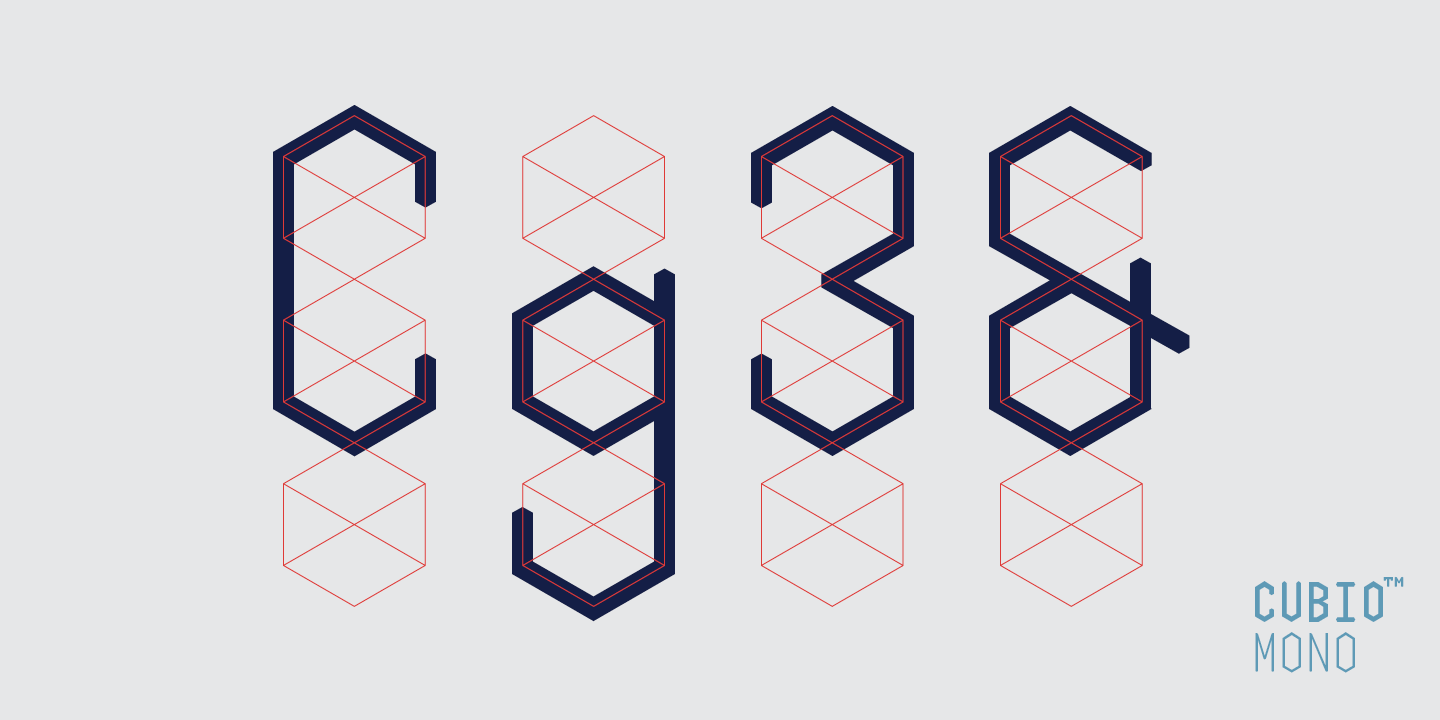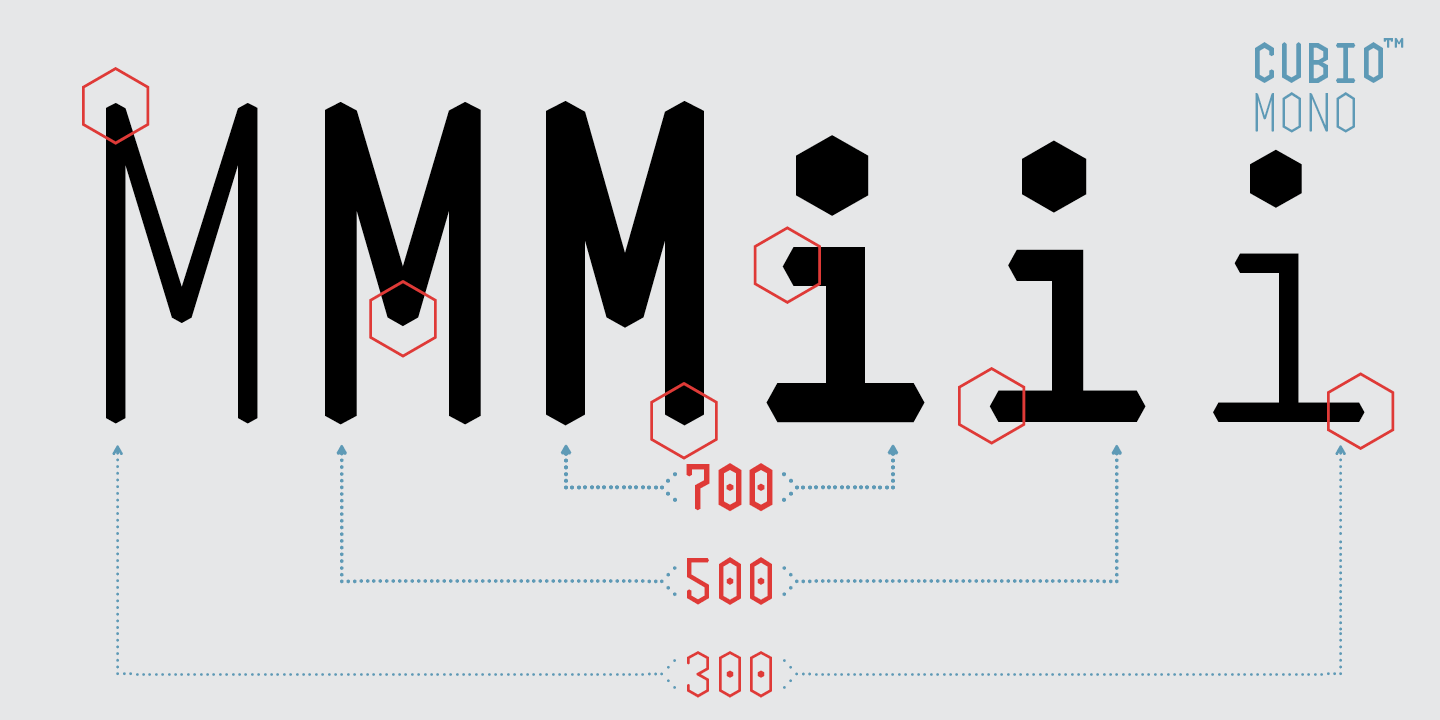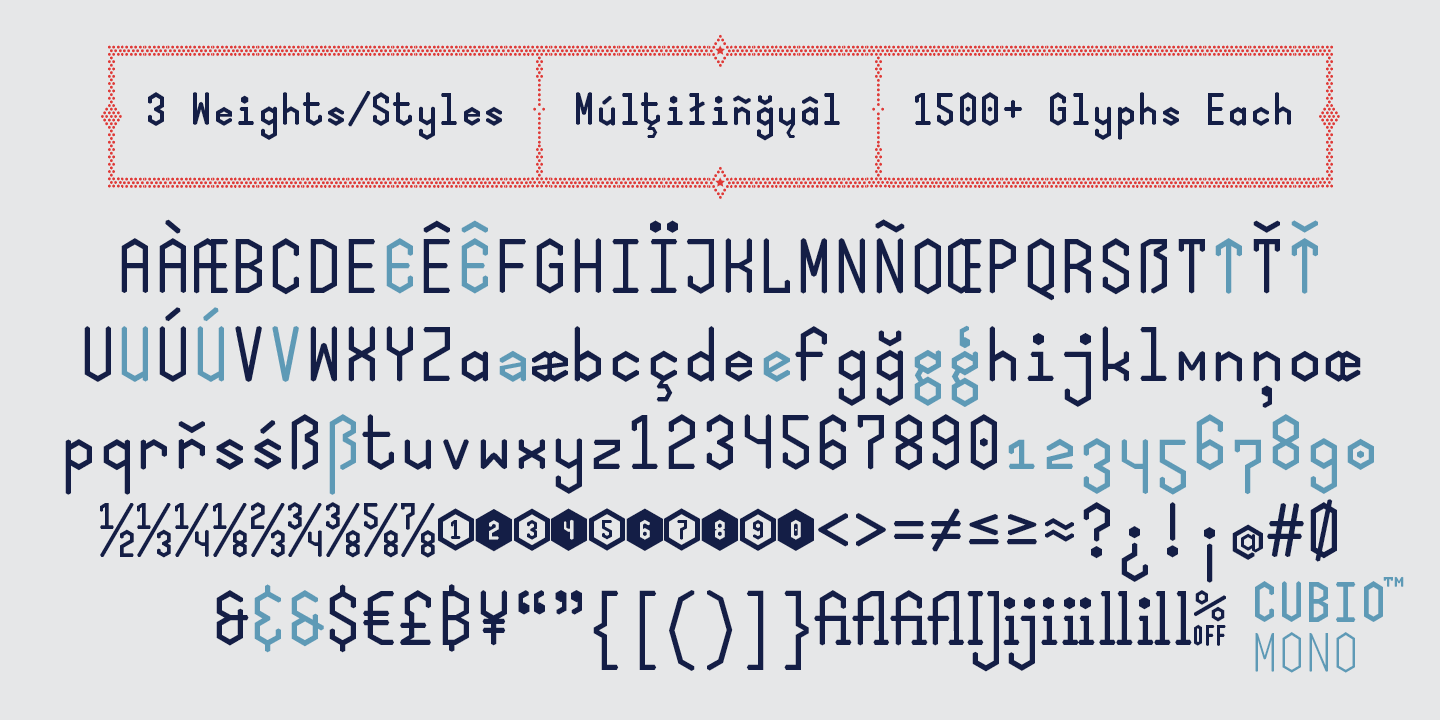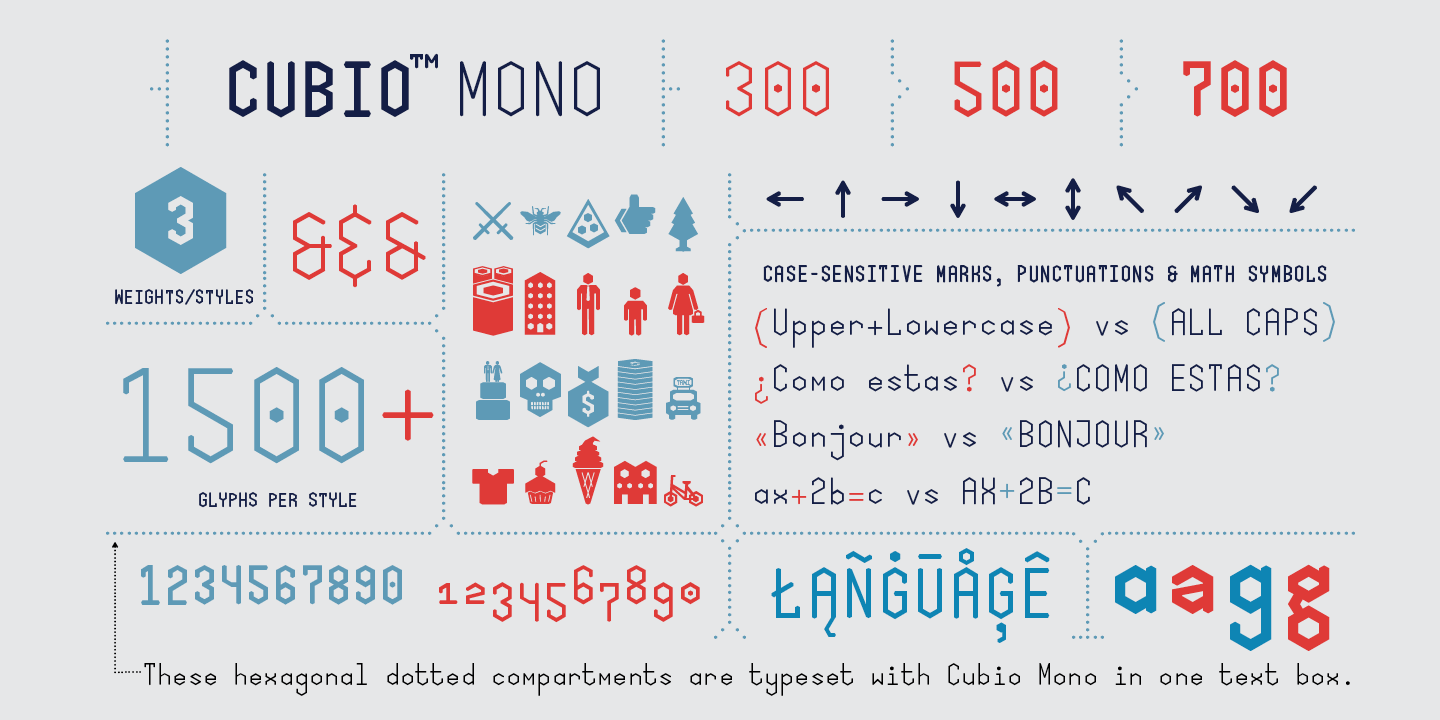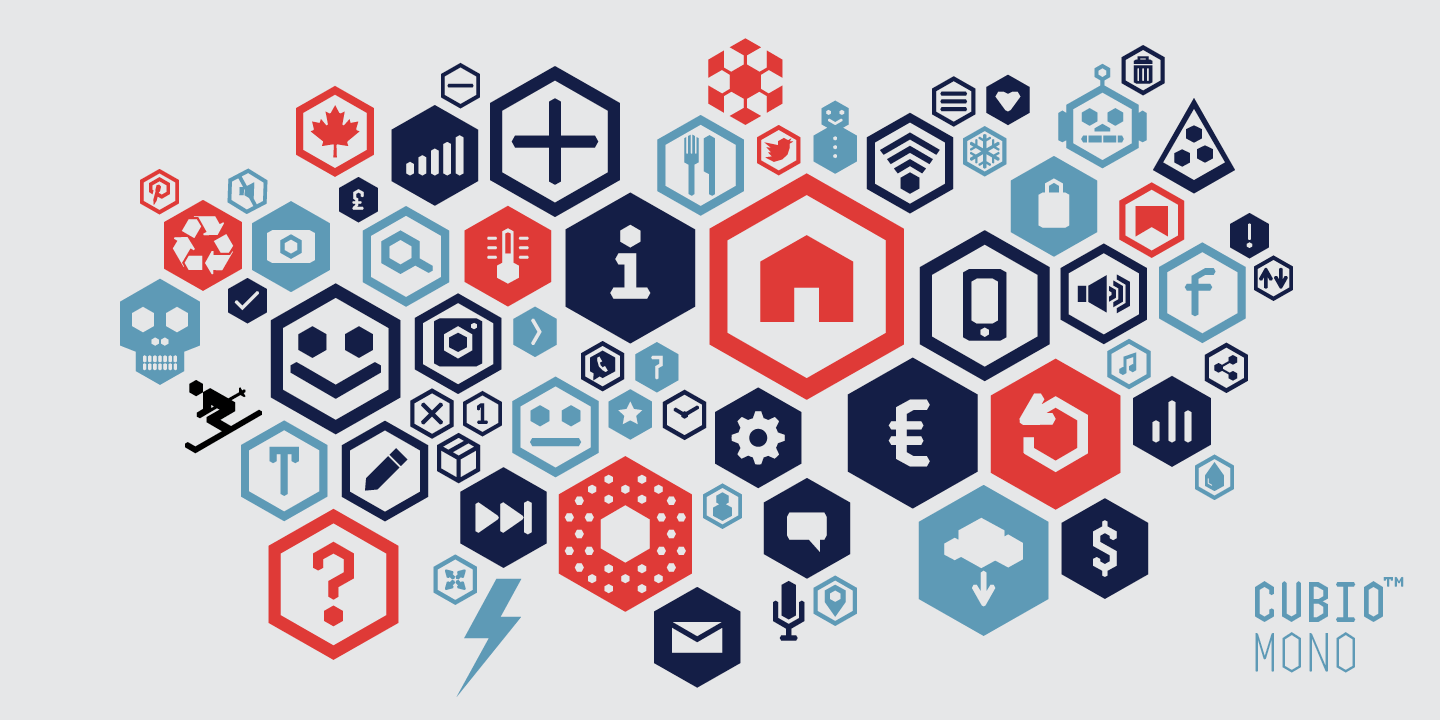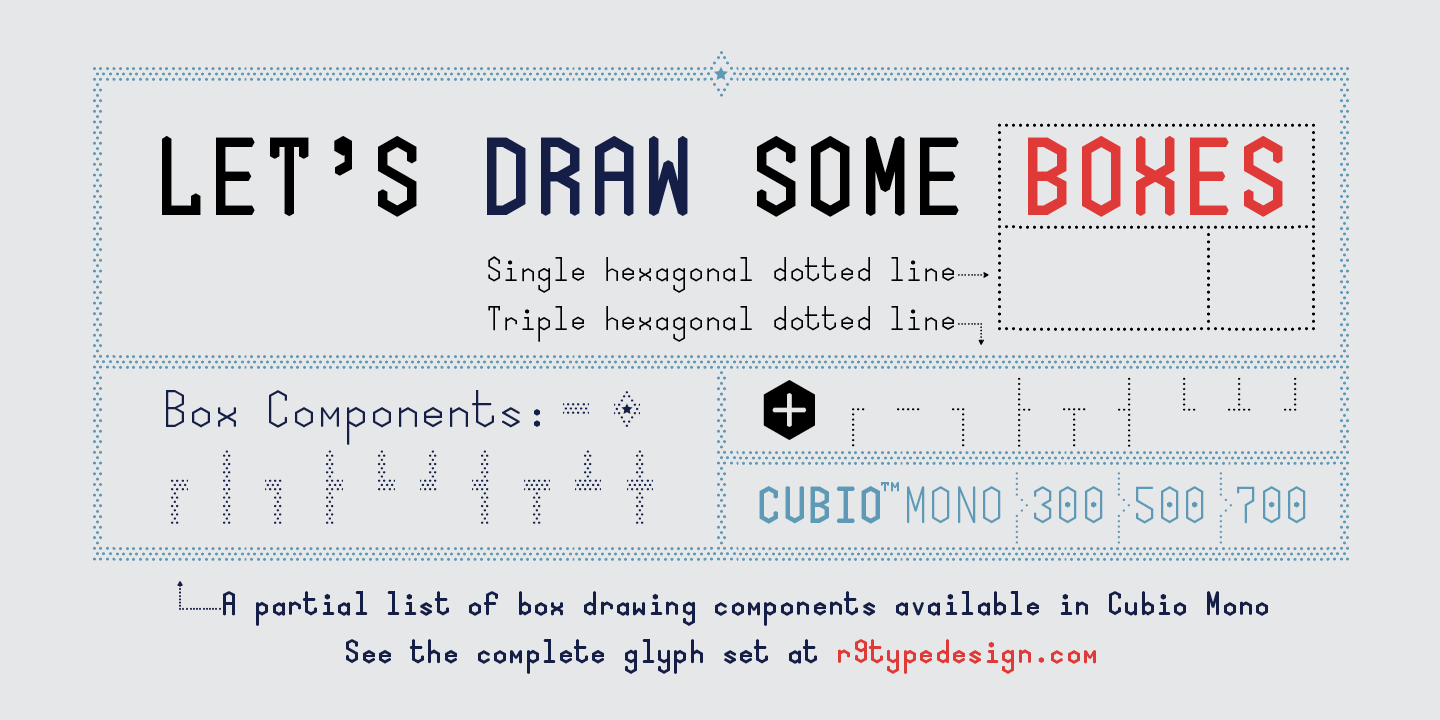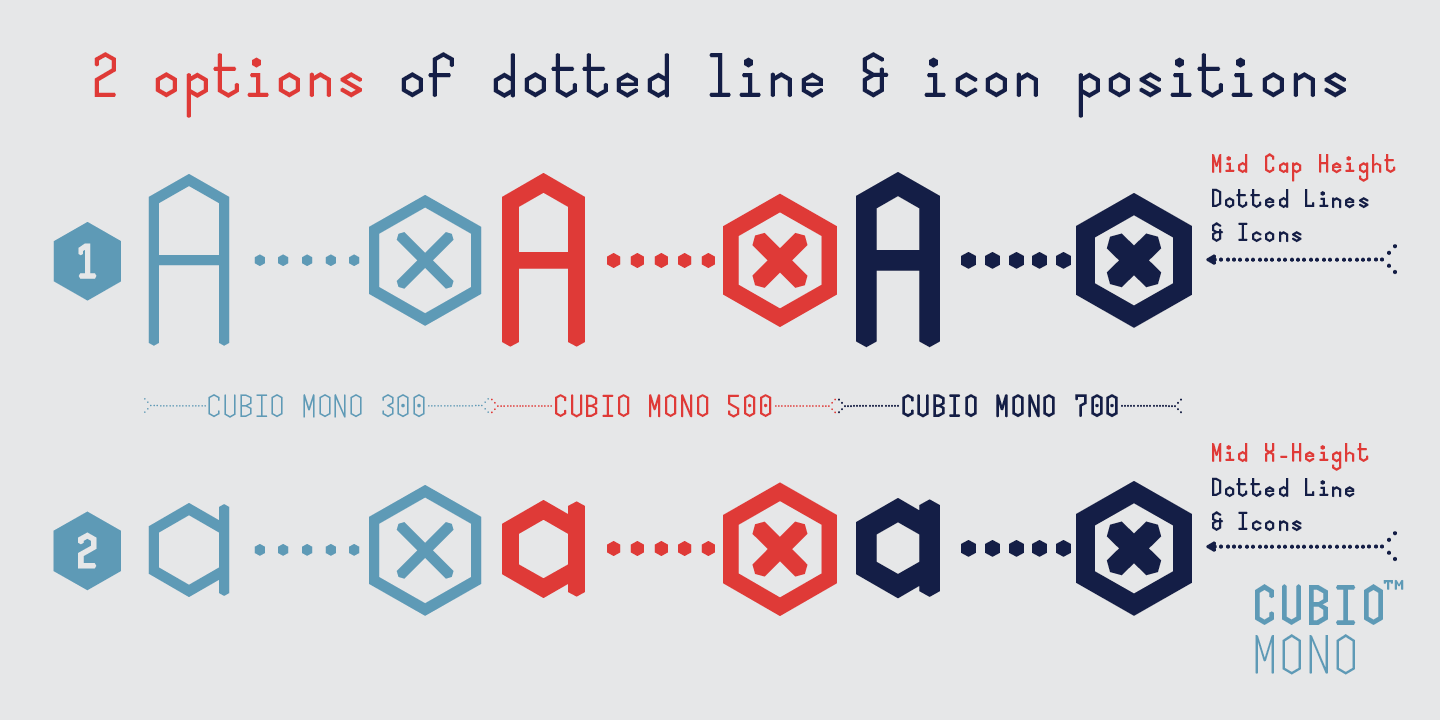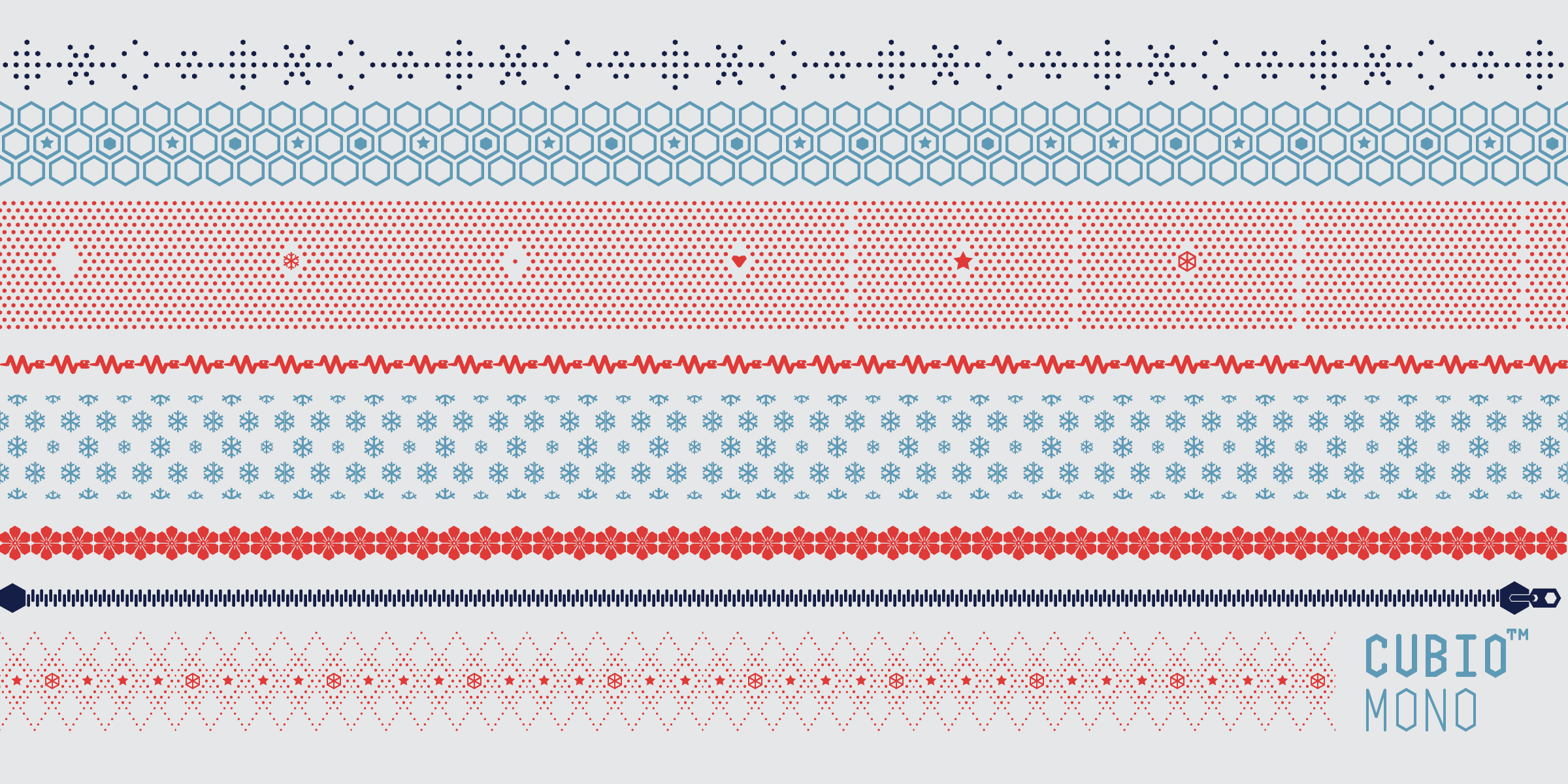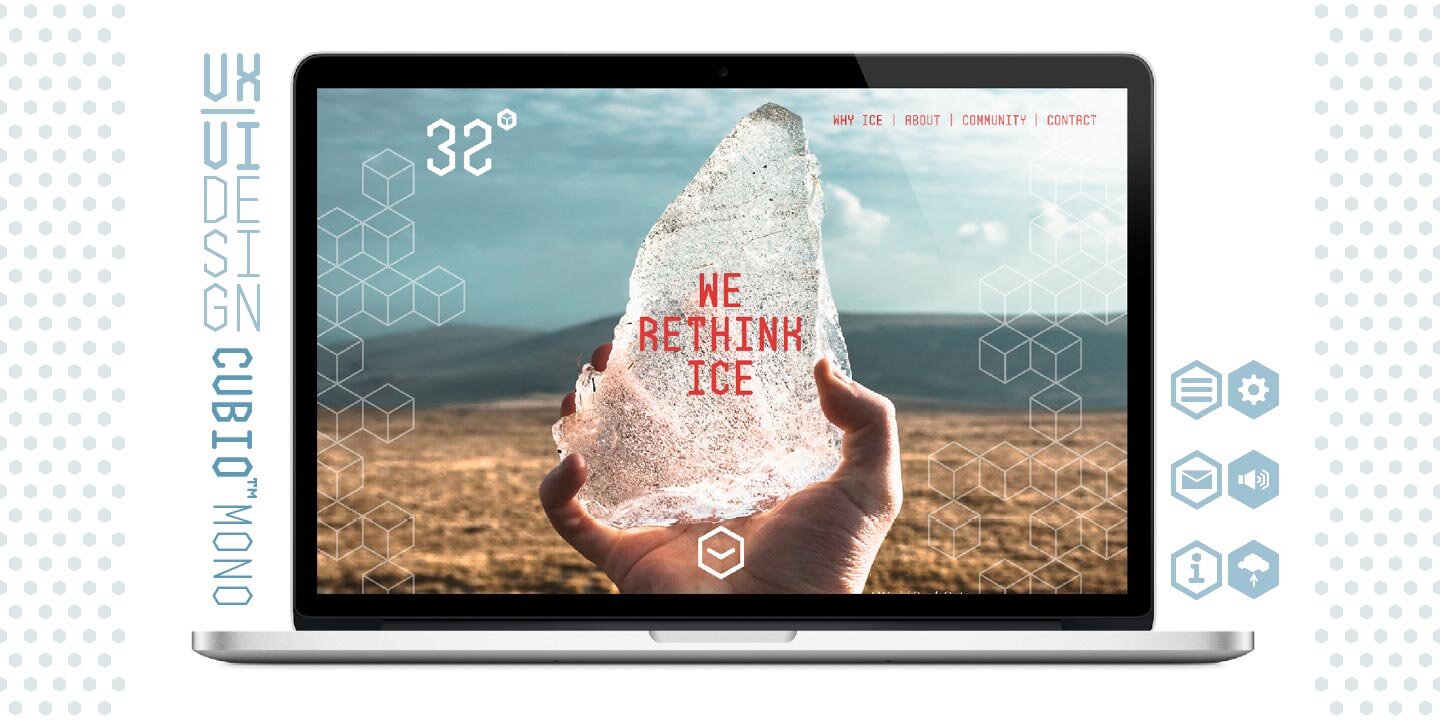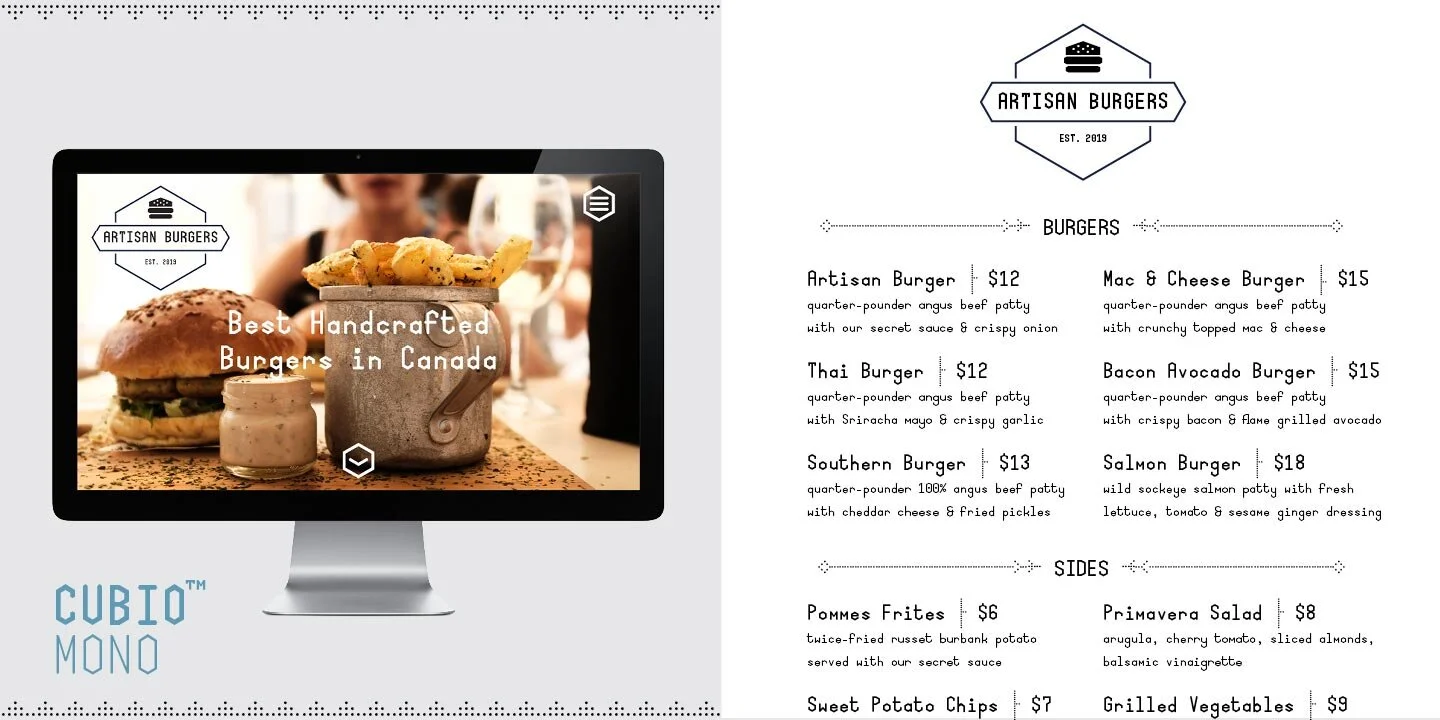
Cubio™ Mono Font Features & Type Specimen
Cubio™ Mono: The Font System for a Unique Look
Cubio™ Mono is a new monospaced geometric sans serif typeface from our Canadian type foundry. Inspired by the hexagonal silhouette of isometric cubes, we applied this unique angular form to all aspects of the font's design, from the overall look of the letters and icons down to small details, such as the end of each letter stem and hexagonal dotted lines.
Cubio™ Mono is More Than Just a Font Family. It‘s a “Font System.”
This unique Canadian typeface comes in 3 weights/styles: 300 (Regular), 500 (Medium), and 700 (Bold). With over 1,500 glyphs each, Cubio™ Mono not only supports most Latin-based languages but also features an extensive set of UX/UI icons and patterns. Thanks to its abundant design elements, we can create all the type specimens on this page entirely with Cubio™ Mono. It is a versatile typeface for both digital and traditional designs. Perfect for your packaging design, logo design, infographic, print design, store signages, UX/UI web & apps projects.
The More Opentype Features, the Merrier the Font User-Experiences.
Cubio™ Mono packs with Opentype features such as case-sensitive marks, punctuations and math symbols. It also has an extensive set of box/compartment drawings glyphs to help you create a unique modern design without using the plain old line tool. All the features are designed to help improve your user experience and streamline your workflow.
We Designed the Cubio Mono Font System with Your Convenience in Mind.
Cubio™ Mono comes with two sets of hexagonal dotted lines and icon positions (Mid Cap Height and Mid X-Height ), so you don’t have to use the baseline shift command to set them to the perfect spots.
Cubio™ Mono Type Specimen
Cubio™ Mono comes with hundreds of UX/Ui icons. Above are some icon samples. For the complete list of Cubio Mono icons, please see click here>.
Cubio™ Mono comes with several patterns for your design projects. Above a few samples. For the complete list of Cubio Mono patterns, please see click here>.
Cubio Mono Is a brilliant choice for UX/UI design. It comes with an extensive set of icons and patterns to set your design apart from the others.